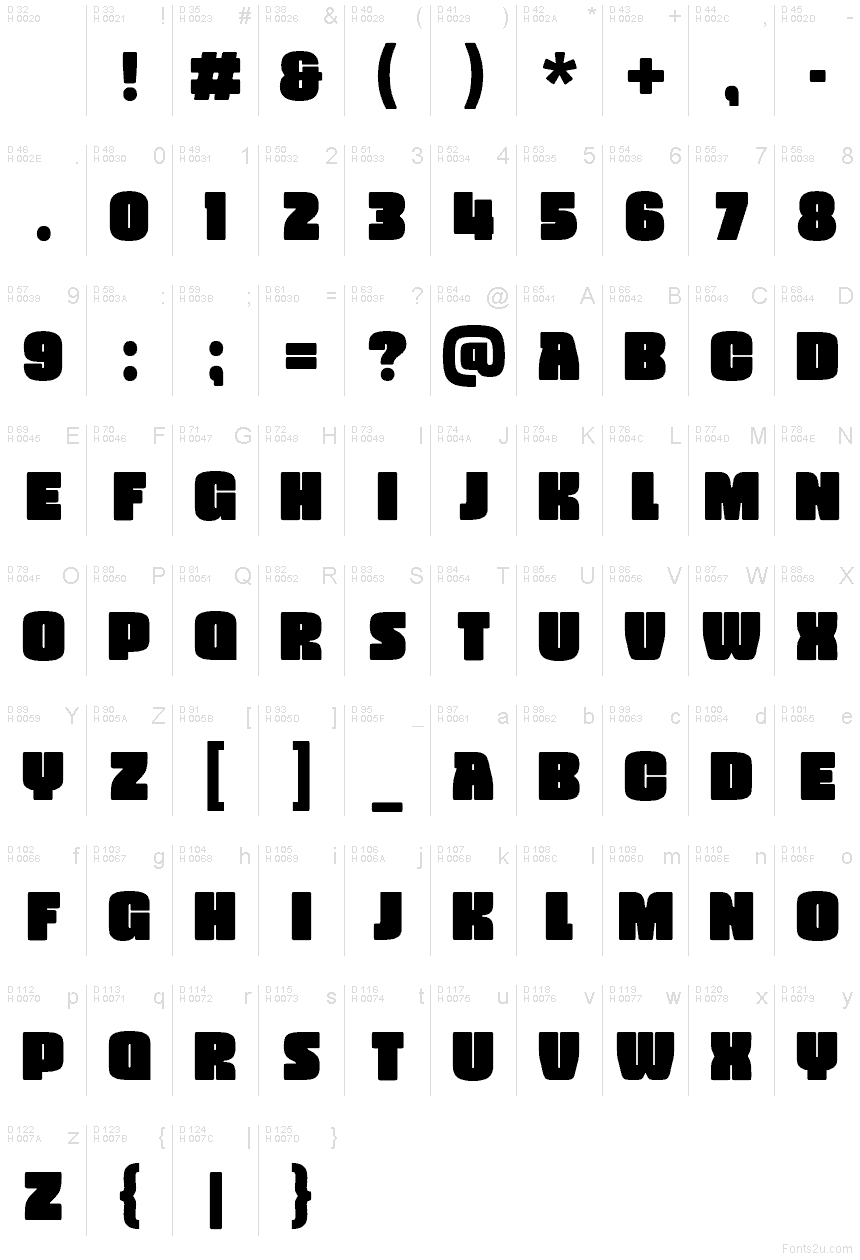
Vivala Black Bold
Vivala Black Bold font by Johannes Hoffmann is a free black bold sans serif display font. Built around a high black-to-white ratio, it packs chunky, rounded forms into a tight rhythm that reads like ink poured into a mold—dense, even, and unmissable. The compact spacing and smooth curves create a heavy silhouette that fills space without feeling clumsy, giving headlines an immediate, pressurized presence.
Using Vivala Black Bold, titles snap into focus on magazine covers, posters, packaging, logos, banners, and event flyers. This free font thrives at large sizes where its thick counters and steady cadence deliver impact with minimal words. For balance, pair it with a light grotesk for body copy, and give it a touch of extra tracking to let those solid shapes breathe.